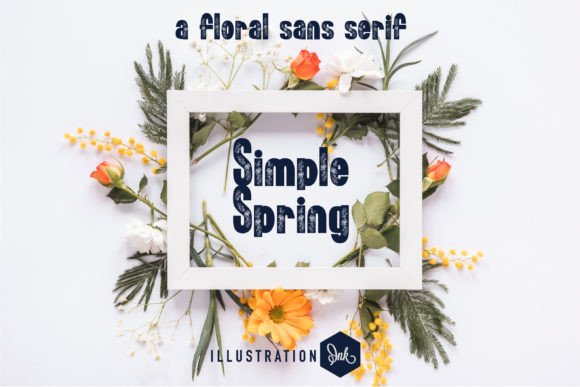
Come experience the enchanting world of Simple Spring, a sans serif font that exudes the vibrant charm of summer. Each letter is a masterpiece, blossoming with delicate floral sprays that dance across your designs.
Indulge in the joy of creativity as you transform your projects into breathtaking works of art. Simple Spring's bold lines and whimsical curves evoke a sense of fun and freedom, making it the perfect font for capturing the carefree spirit of the season.
Embrace the beauty of nature and weave it into your designs with this captivating font. Let Simple Spring breathe life into your invitations, posters, and social media posts, adding a touch of elegance and joy to every word you write.
Escape the ordinary and embark on a creative journey with Simple Spring. Its versatile charm will elevate your projects to new heights, leaving a lasting impression that will enchant and inspire.